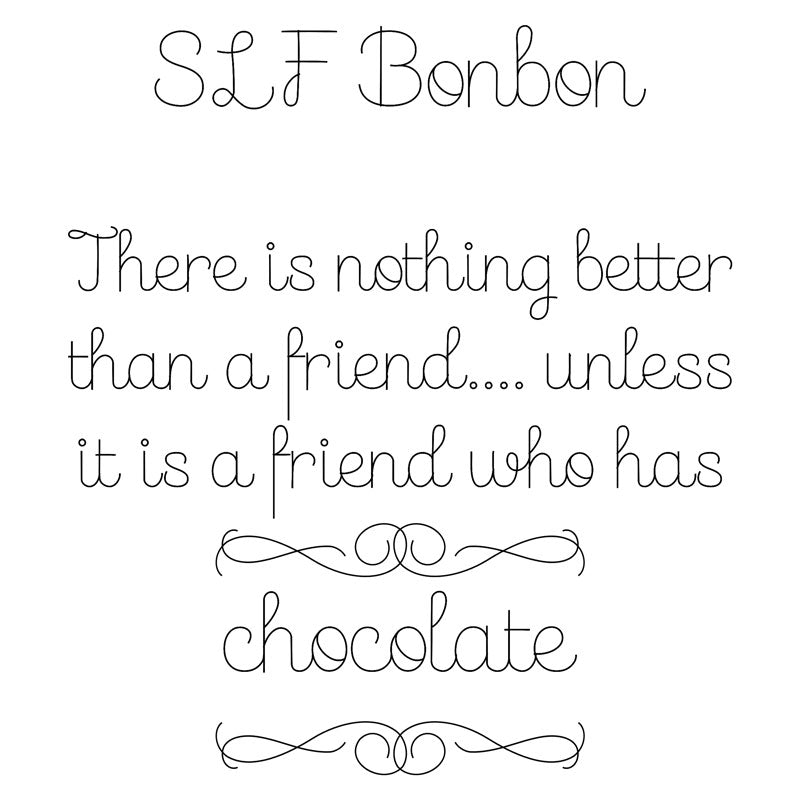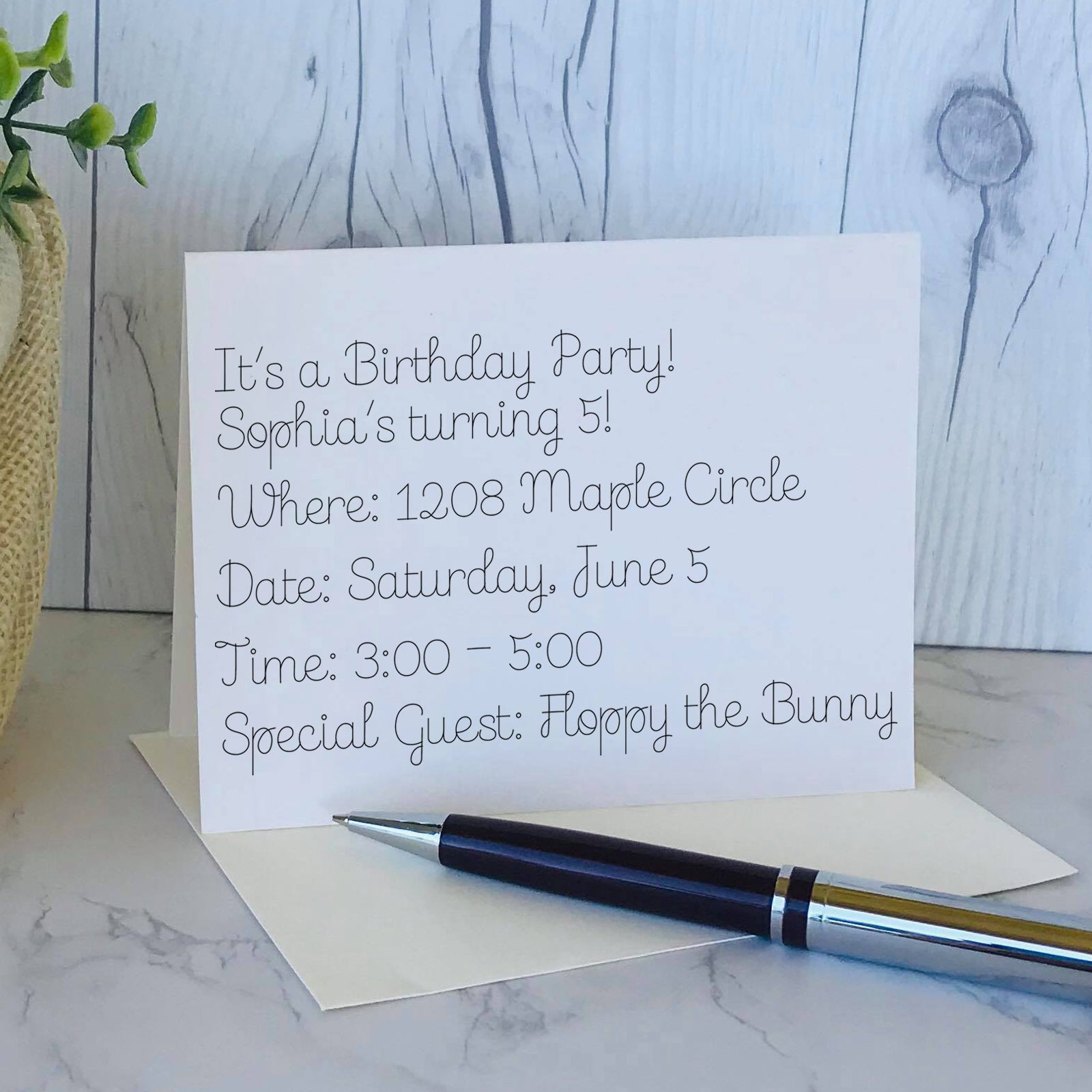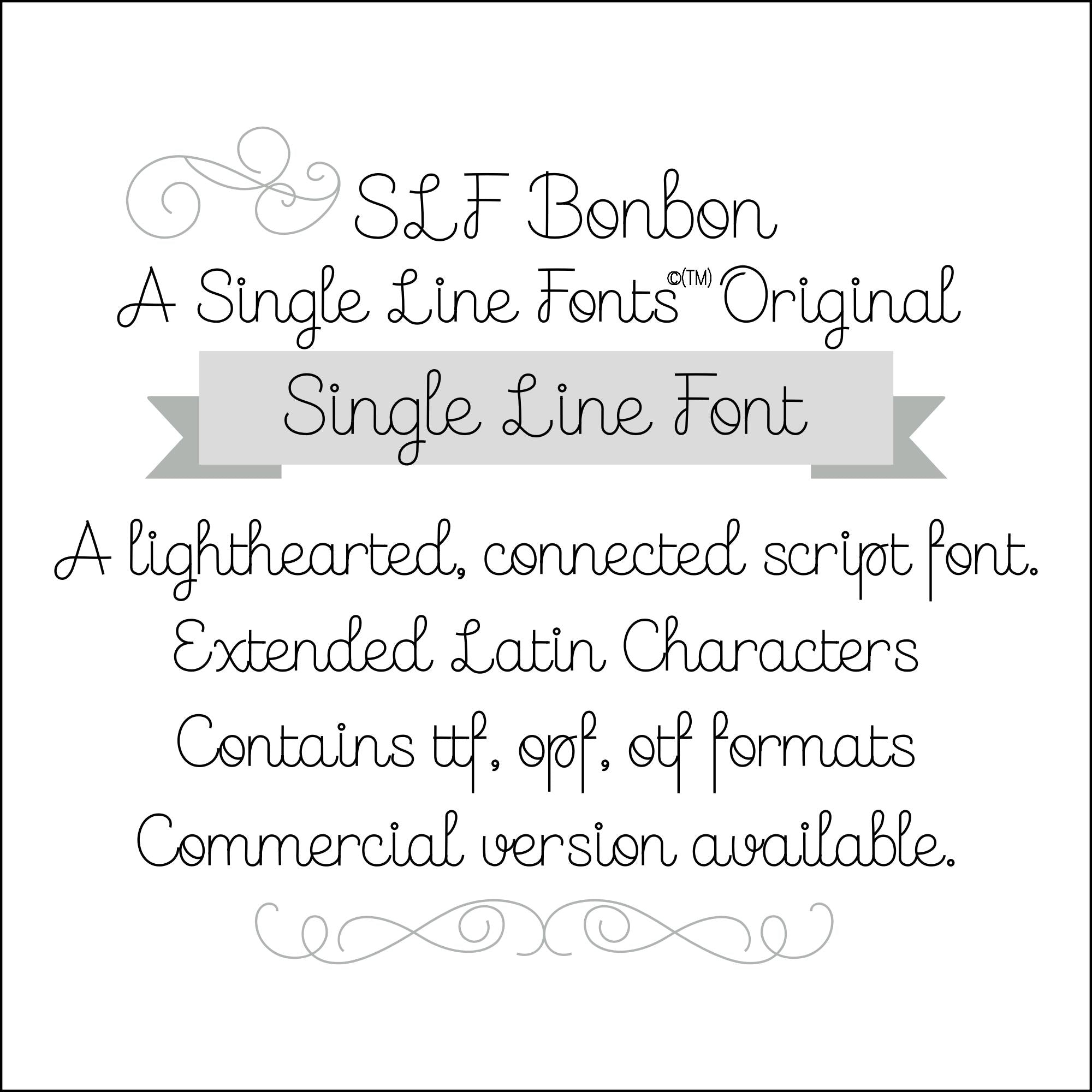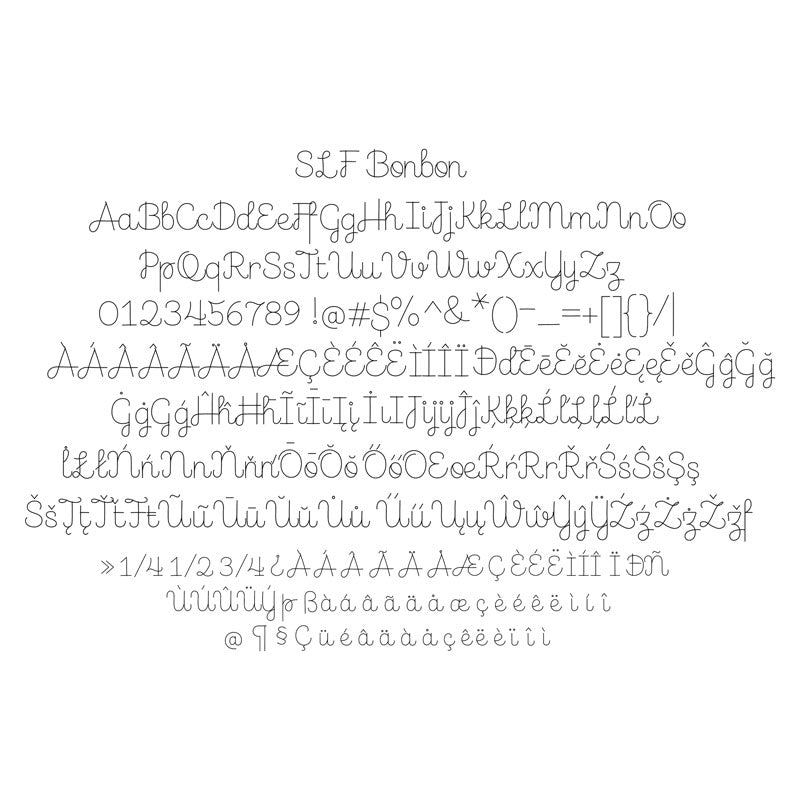
Single Line Font "SLF Bonbon"
SLF Bonbon
SLF Bonbon is a playful font for use in making cards with pen tools or foil quill.  Also ideal for engraving when working with lighthearted designs.
Because true type format fonts must have what we call “closed paths”. To get around this, we created these fonts with no outlines. Instead, the lines trace over themselves one time and then "close".
These letters do not have any outlines at all!  Like the name implies, they are are "single line fonts", also called "stick fonts", "single-stroke fonts" or "journaling fonts".  These are in .opf  (open path font) format. Here's how they work: these are only for the cutting software packages Starcraft CREATE and Sure Cuts a Lot (versions 5 and up).  Some engraving and CAD/CAM programs will also accept OPF fonts.  Your pen, foil quill, embossing, engraving, etching or similar tool will draw a single line only.  No outlines, no going over the lines a 2nd time.